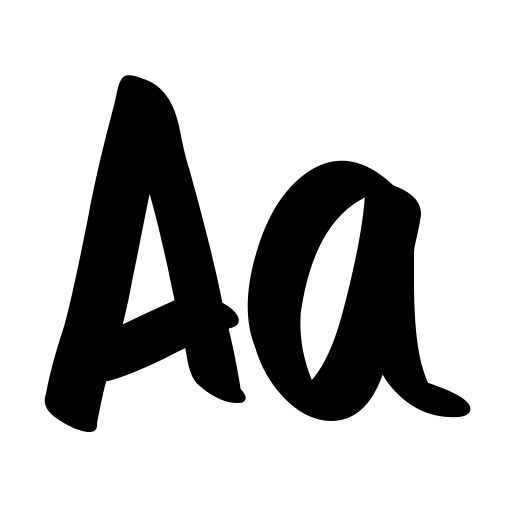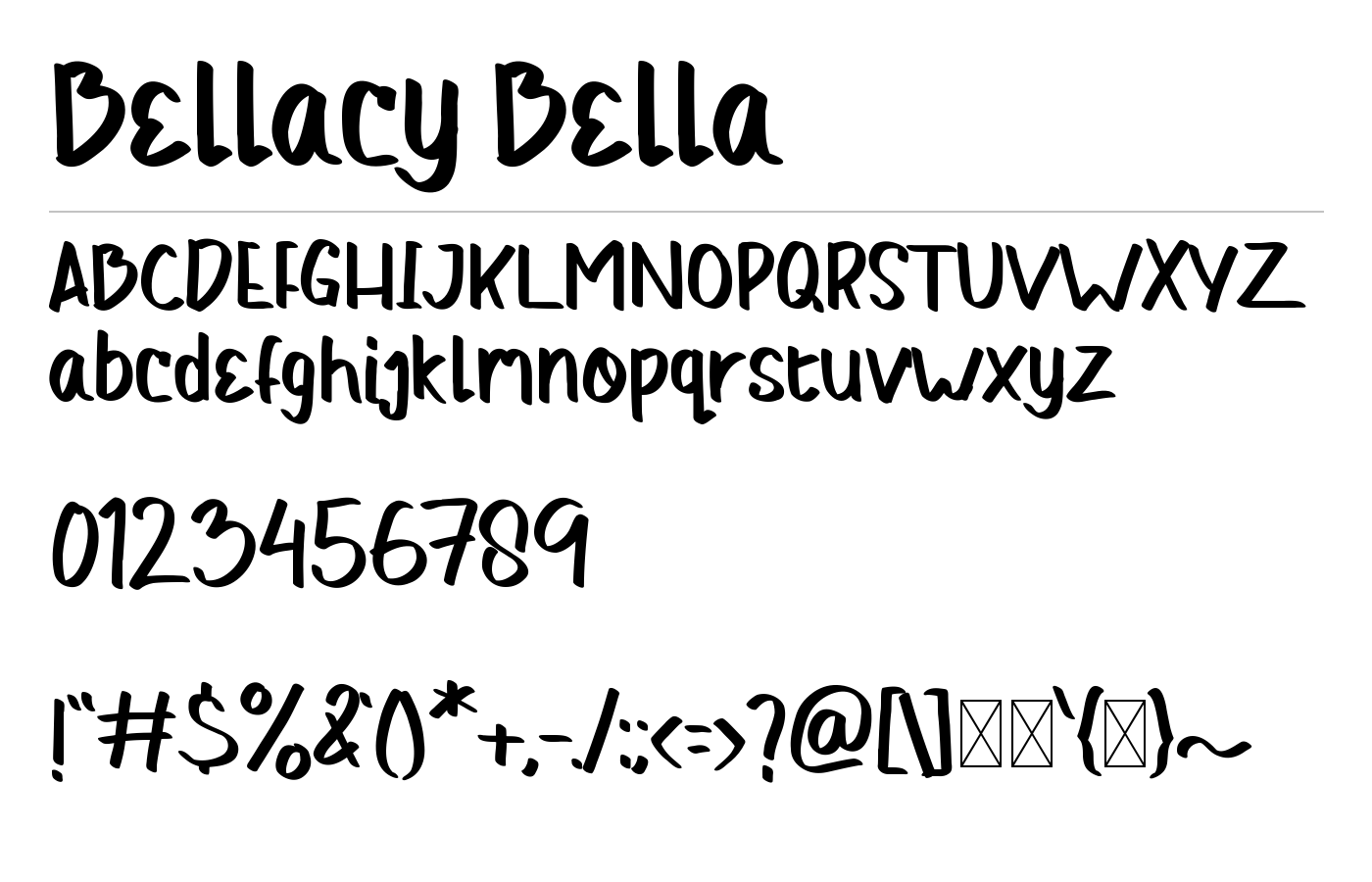
Bellacy is a playful, handwritten sans serif font with a casual and friendly vibe. Its irregular, slightly bold strokes and unique letter shapes give it an approachable and creative personality, making it perfect for informal branding, children’s materials, or artistic projects that want a personal touch. This font works well in headlines, logos, and packaging where a warm, inviting style is desired.
Bellacy Font
About Bellacy Font